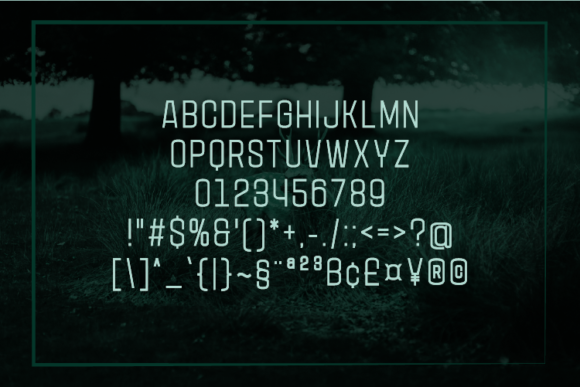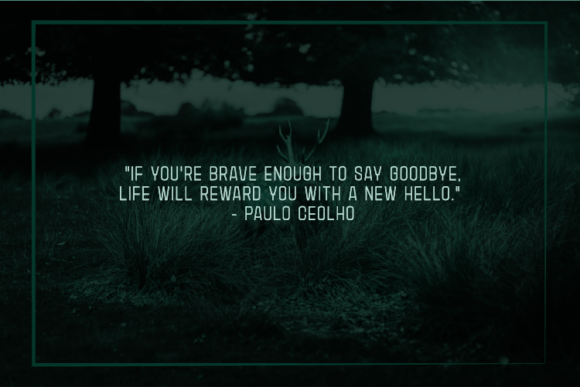
The Ultimate Guide to Cleoties Font: Elevate Your Designs with This Stunning Sans Serif
I still remember the frustration of working on a wedding invitation project, searching for the perfect font to make it stand out. The client wanted something elegant, yet modern, and I was determined to deliver. That’s when I stumbled upon Cleoties Font, a fantastic sans serif font that has since become a staple in my design toolkit. In this article, I’ll share my love for Cleoties, its features, and how to make the most of it in your designs.
My Honest Review of Cleoties Font
Cleoties Font has won me over with its clean lines, versatility, and charm. Here are what I love about it:
- ✨ **Clean and modern design**: Cleoties boasts a sleek, sans serif look that’s perfect for a wide range of projects.
- ✅ **Highly versatile**: Use it for displays, headers, invitations, wedding invites, and so much more!
- 💫 **Excellent for digital and print**: Cleoties performs beautifully in both digital and print formats.
While Cleoties is an amazing font, it’s not without its quirks:
- 🤔 **Limited italic version**: The font’s italic version is not as extensive as the regular one, which might limit its use in certain projects.
- ⚠️ **Not ideal for body text**: Due to its sleek design, Cleoties might not be the best choice for lengthy body text.
- Experiment with OpenType features like **Stylistic Alternates** to add a unique touch to your text.
- Explore the **Glyphs** panel to access additional characters, such as ligatures and stylistic alternates.
The Backstory of Cleoties Font
Cleoties Font was designed with the goal of creating a clean, versatile sans serif that would cater to a wide range of design needs. Inspired by modern typography and geometric shapes, Cleoties aims to bring a touch of elegance and sophistication to any project.
| Font Name | Cleoties Font |
| Author | Nan Design |
| What type of projects is Cleoties best suited for? | Cleoties is perfect for displays, headers, invitations, wedding invitations, and any design that requires a modern, clean look. |
| Does Cleoties support OpenType features? | Yes, Cleoties supports OpenType features, including stylistic alternates and glyphs, which can be accessed in compatible software like Adobe Photoshop and Illustrator. |
| Is Cleoties suitable for body text? | While Cleoties is a beautiful font, it’s not ideal for lengthy body text due to its sleek design. It’s better suited for headlines and short paragraphs. |